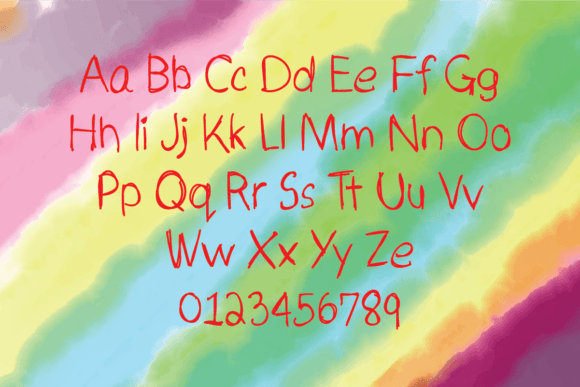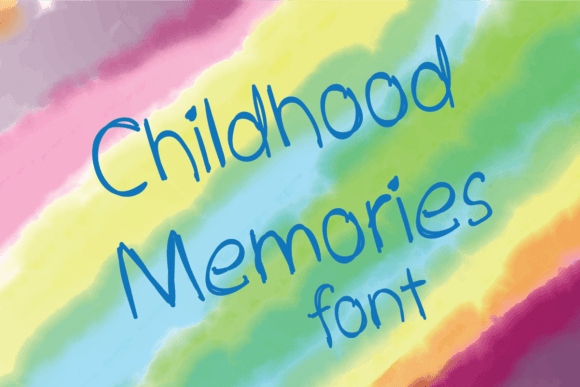
Unlocking the Power of Nostalgia: Introducing the Childhood Memories Font
Childhood memories have a way of transporting us back to a simpler time, evoking feelings of nostalgia and warmth. For designers and crafters, capturing the essence of these memories can be a powerful way to connect with audiences and create engaging content. That’s where the Childhood Memories Font comes in – a fun, unique, and attractive display font that’s perfect for a wide range of projects.
The Perfect Blend of Fun and Sophistication
The Childhood Memories Font is a game-changer for anyone looking to add a touch of whimsy and personality to their designs. Its playful, yet elegant design makes it an excellent choice for a variety of applications, from sublimation and greeting cards to advertisements, birthday parties, and more. Whether you’re a seasoned designer or a crafter looking to add a personal touch to your work, this font is sure to inspire.
Endless Creative Options
One of the best things about the Childhood Memories Font is its versatility. With its unique and attractive design, the possibilities are endless. Here are just a few ideas to get you started:
- Sublimation: Create stunning sublimation products, such as t-shirts, mugs, and phone cases, that are sure to turn heads.
- Greeting Cards: Add a personal touch to your greeting cards and make them stand out from the crowd.
- Advertisements: Use the Childhood Memories Font to create eye-catching advertisements that grab attention and leave a lasting impression.
- Birthday Parties: Create custom birthday party decorations, invitations, and favors that will make your celebration unforgettable.
- Quotes and Titles: Use the font to add a touch of elegance and sophistication to your quotes, titles, and headings.
- Brand Names: Create a unique and memorable brand identity with the Childhood Memories Font.
- Book Covers: Use the font to create eye-catching book covers that will make your book stand out on the shelves.
Why Choose the Childhood Memories Font?
So, what sets the Childhood Memories Font apart from other fonts on the market? Here are just a few reasons why designers and crafters are falling in love with this unique font:
- Unique Design: The Childhood Memories Font features a one-of-a-kind design that’s sure to make your projects stand out.
- High-Quality: The font is crafted with high-quality techniques to ensure that it looks great in any size or application.
- Versatile: The Childhood Memories Font can be used for a wide range of projects, from digital designs to print materials.
Tips and Tricks for Using the Childhood Memories Font
To get the most out of the Childhood Memories Font, here are a few tips and tricks to keep in mind:
- Experiment with Colors: The Childhood Memories Font looks great in a variety of colors, so don’t be afraid to experiment and find the perfect hue for your project.
- Play with Pairings: Try pairing the Childhood Memories Font with other fonts to create a unique and eye-catching combination.
- Use it Sparingly: While the Childhood Memories Font is perfect for headlines and titles, it can be overwhelming if used too much. Use it sparingly to create a balanced design.
| Font Name | Childhood Memories Font |
| Author | Laura’s Imperfections |
The Childhood Memories Font is a powerful tool for designers and crafters looking to add a touch of nostalgia and personality to their work. With its unique design, versatility, and ease of use, it’s the perfect choice for a wide range of projects. Whether you’re looking to create stunning sublimation products, eye-catching advertisements, or memorable brand identities, the Childhood Memories Font is sure to inspire. So why wait? Unlock the power of nostalgia and get creative with the Childhood Memories Font today!